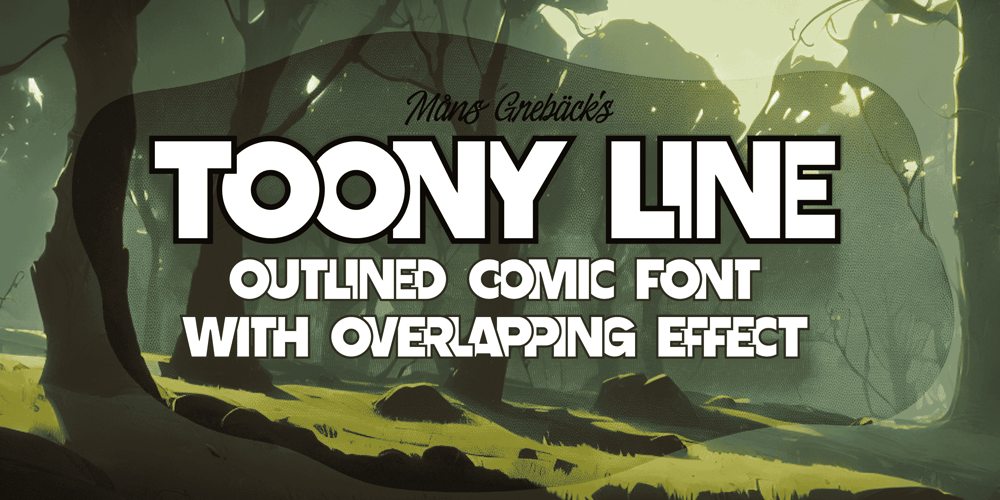
Toony Line
Toony Line font
Toony Line Font Family was designed by Måns Grebäck and published by Mans Greback. Toony Line contains 4 styles and family package options. Toony Line is a comic font that feels like a delightful throwback to the golden age of cartoons. Funny and loony, the font channels playful tunes while its sharp, sans-serif characters dance on the page with a joy reminiscent of our favorite animated classics. There’s a hint of Mickey’s magic, a dash of Disney dreaminess, and the unapologetic boldness of comic strips and street art. But what sets Toony Line apart is its intricate overlapping effect, made possible by sophisticated OpenType.